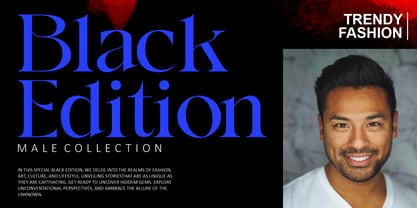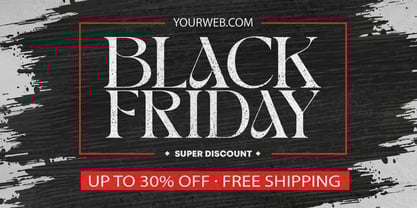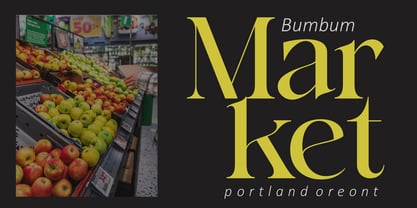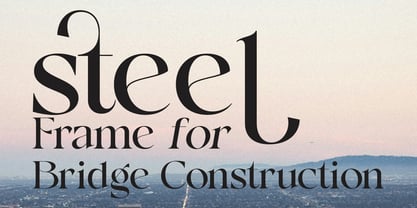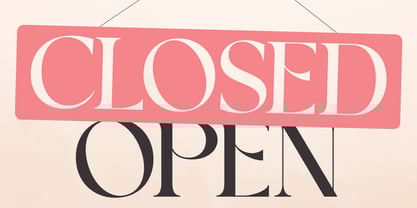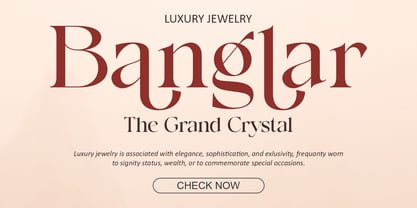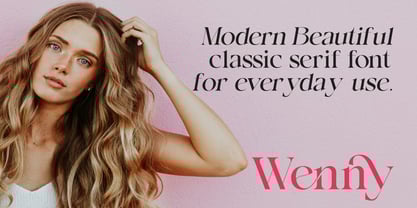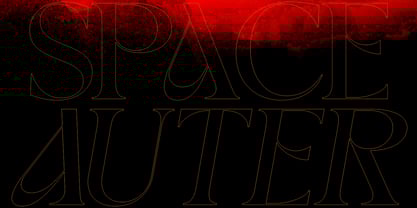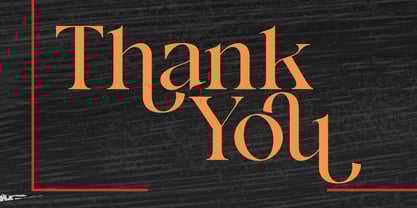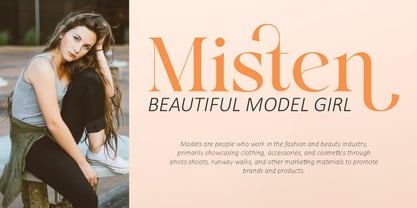
Leostut
by Gian Studio
The Leostut Font Family was designed by Yusliana M Isa and published by Gian Studio. Leostut contains 2 styles and family package options.
Leostut is a harmonious and stylish contemporary serif typeface with a classic feel. Includes 2 Fonts, upright and italic, swollen stems, and italics, growing along with the font character. OpenType features allow the application of typography such as ligatures and support for multiple languages.
Leostut also comes with two versions of Variable Regular and Italic to make it easier for designers to explore and refine beautiful designs, revealing many visual nuances and hidden secrets.
Leostut is a perfect choice for your various design projects such as editorial design, headlines, branding projects, Logo design, packaging, magazine titles, advertisements, short or long texts, web design, and more.
Designer: Yusliana
Designers: Yusliana M Isa